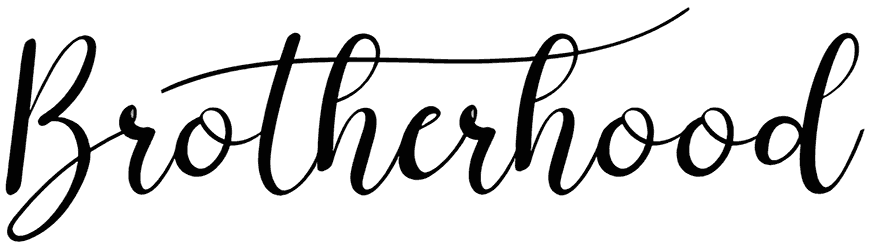
Brotherhood Font
Introducing Brotherhood, an attractive handwritten font that would make your project look amazing. However, the letters have a connected style in writing, but it’s completely readable. With this autumn font, you can add a romantic, elegant, and luxurious touch, which is perfect for designing wedding invitation cards. They are also best suited for branding, logotype, signature, social media, and much more.
Brotherhood is a well-balanced script font featuring charming, playful characters that seem to dance along the baseline. Add this font to your most creative ideas, and notice how it makes them stand out!